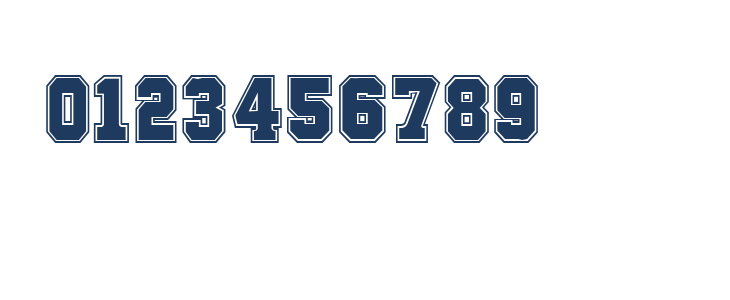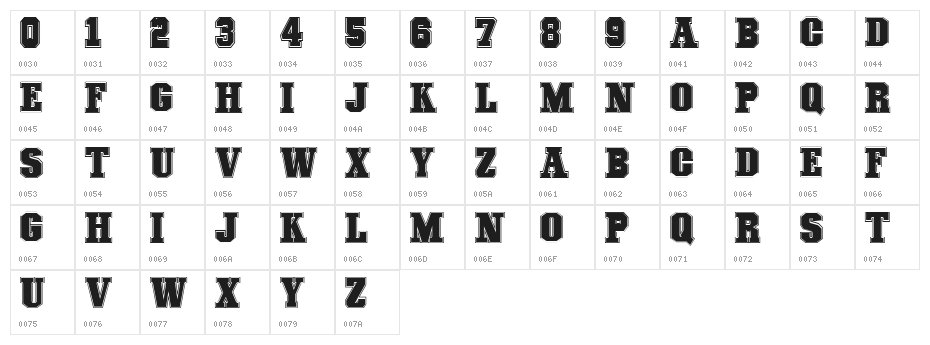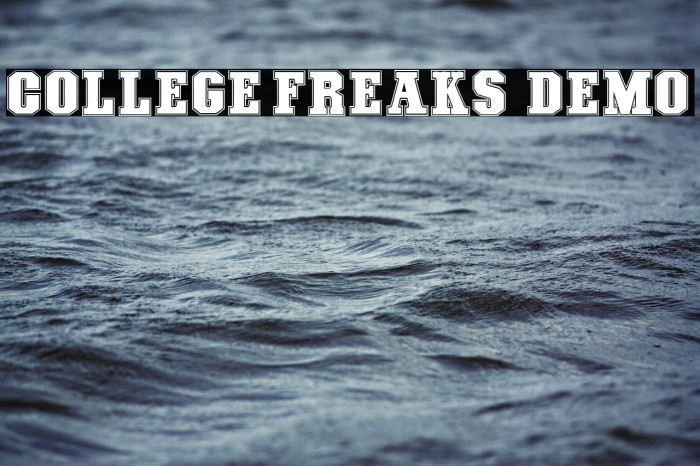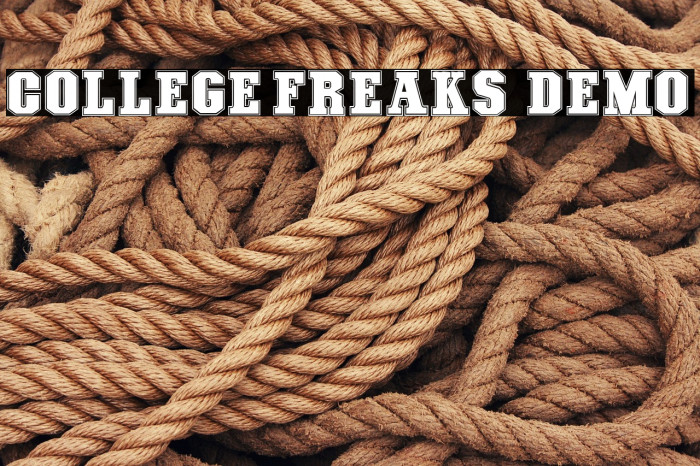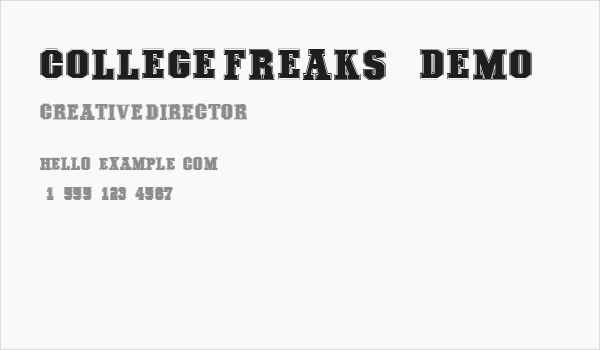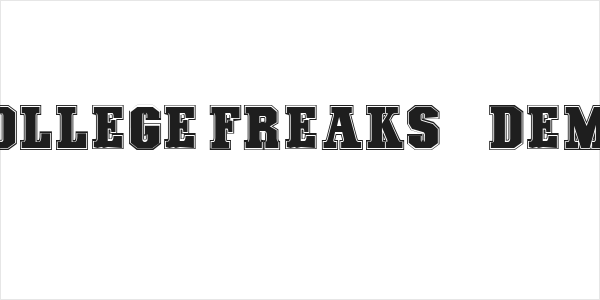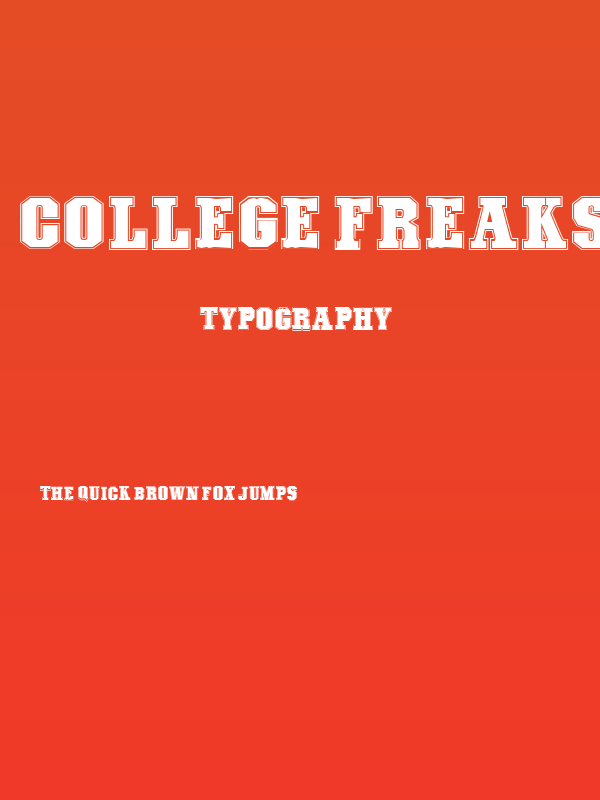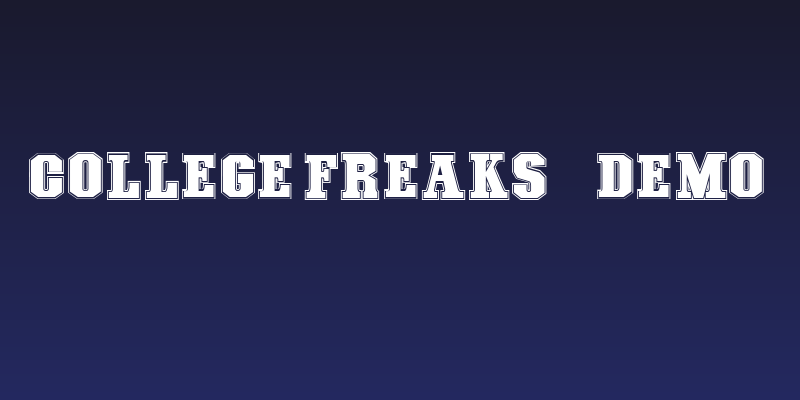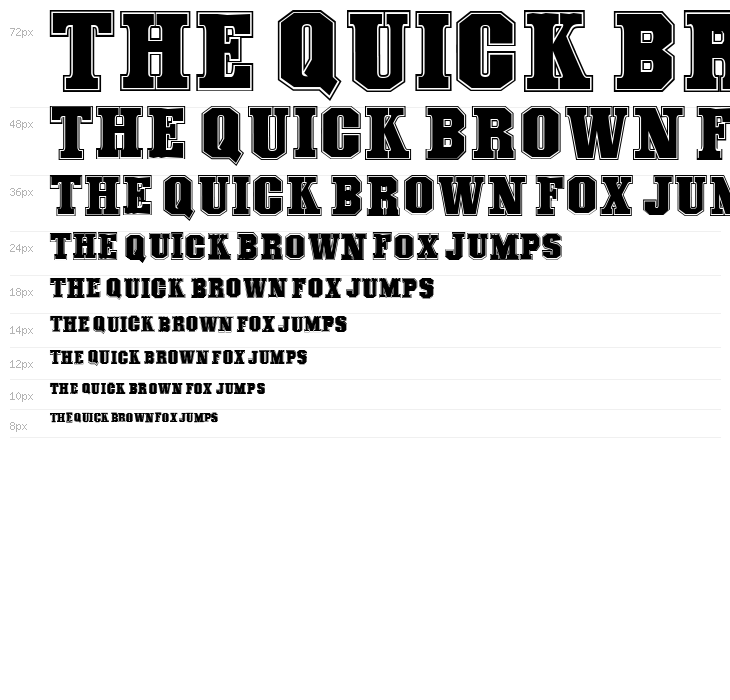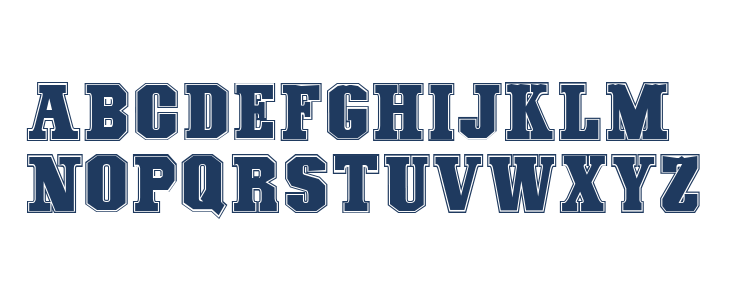
COLLEGE FREAKS - Demo Font
COLLEGE FREAKS - Demo Description
This font features bold, block-style letters with a strong, collegiate aesthetic. The characters are uppercase and have a distinct, shadowed outline that gives them a three-dimensional appearance. The design is reminiscent of traditional varsity or sports team lettering, making it ideal for projects that require a sense of strength and tradition. The numbers and special characters maintain the same bold and impactful style, ensuring consistency across all uses. The font's robust nature makes it suitable for creating eye-catching headlines or logos that need to convey a sense of authority and presence.